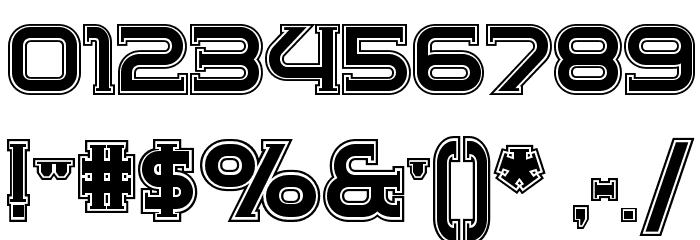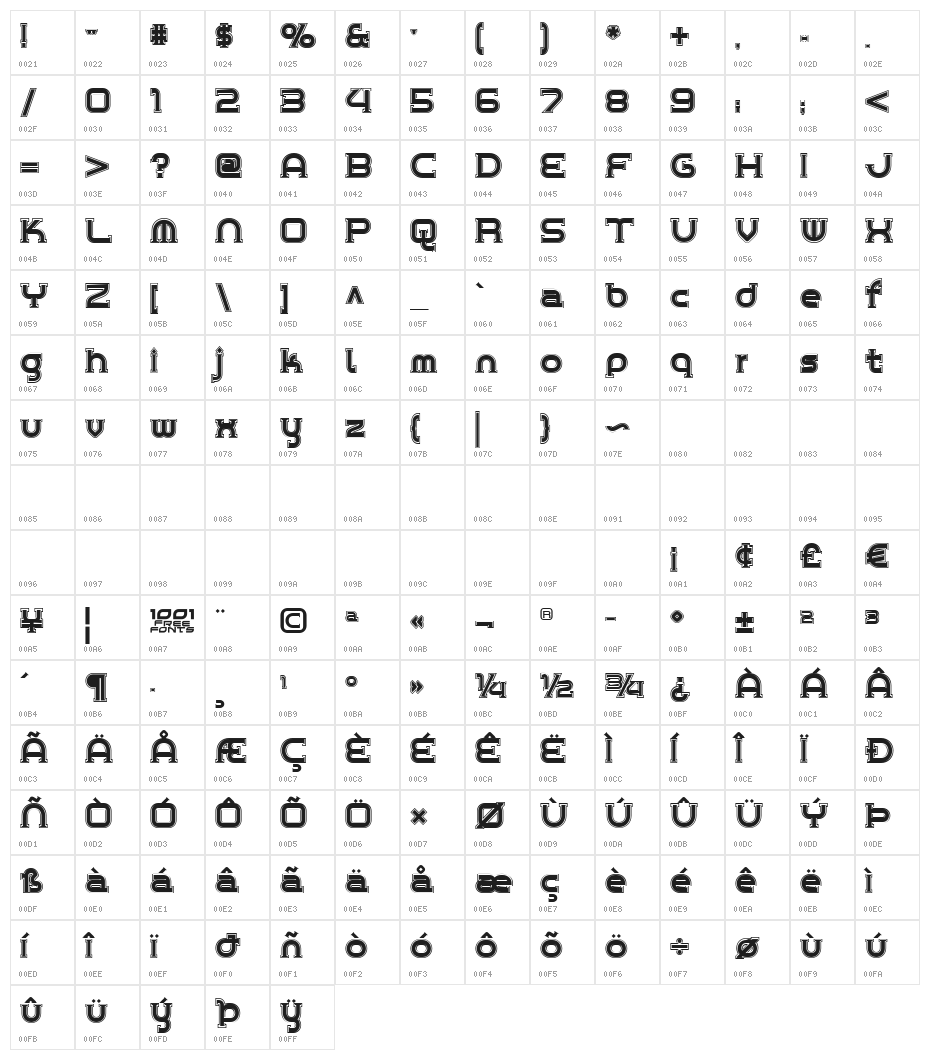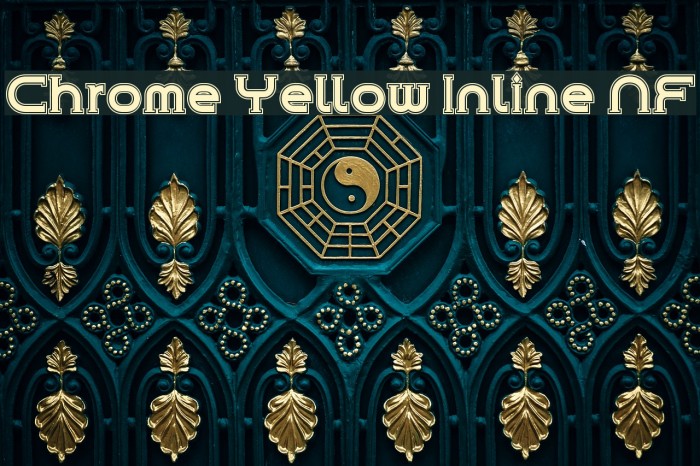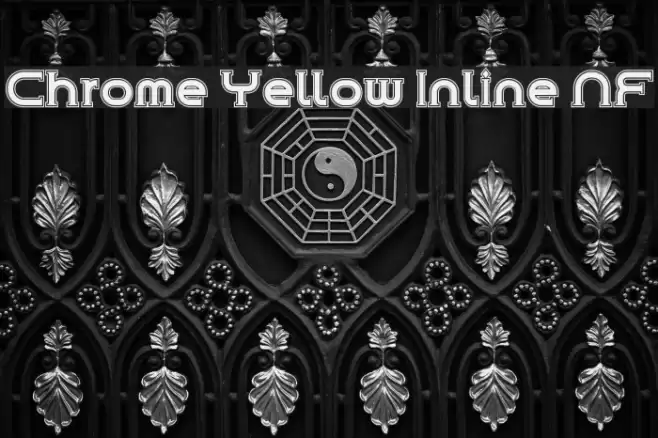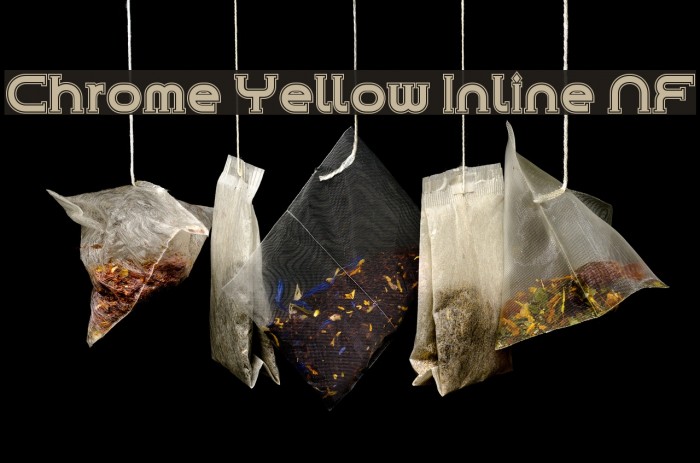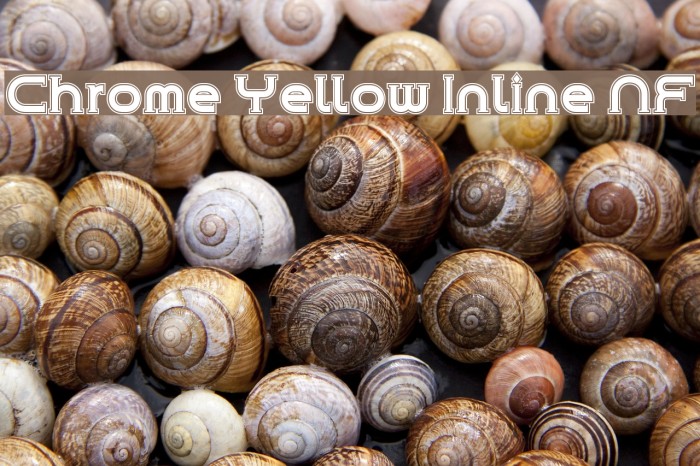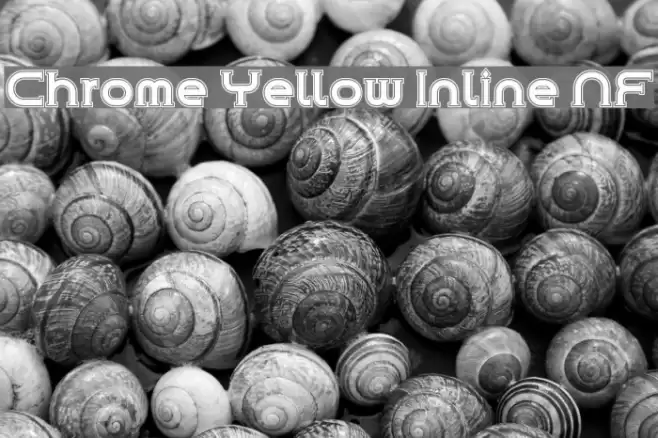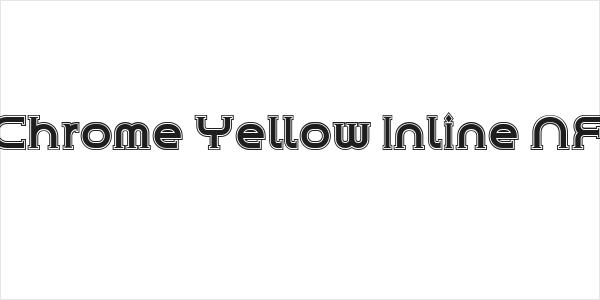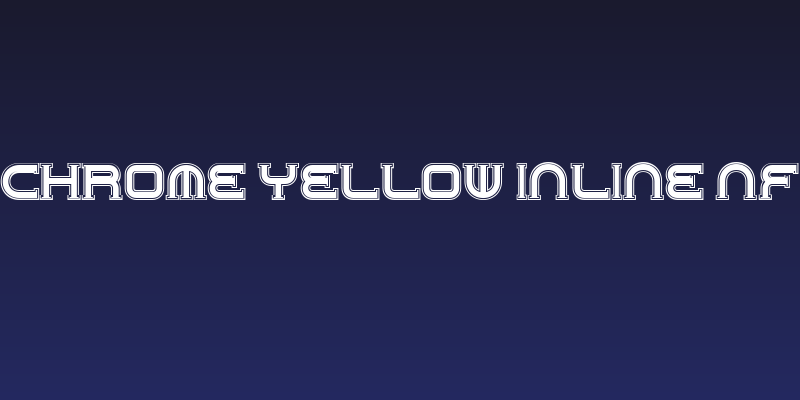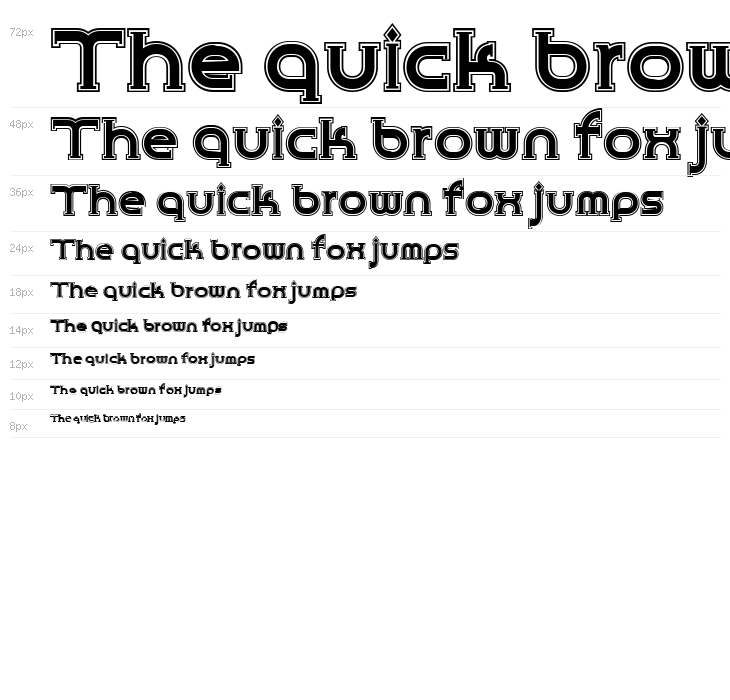
Chrome Yellow Inline NF Font
Chrome Yellow Inline NF Description
This font features a bold, decorative style with an inline design that gives it a unique, three-dimensional appearance. The characters are structured with a strong geometric influence, showcasing a blend of modern and vintage aesthetics. The uppercase and lowercase letters maintain a consistent style, with sharp edges and clean lines. The numerals and special characters follow the same design principles, ensuring uniformity across all glyphs. The inline detail adds depth and interest, making it stand out in various applications. This font is ideal for projects that require a bold statement and a touch of retro flair.
| Overall Style | Decorative, Retro |
| Proposed Projects | Ideal for posters, logos, headlines, and any design needing a bold, retro touch. |